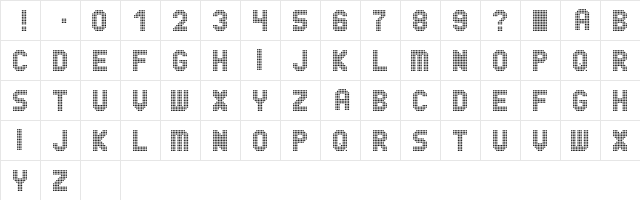
Ride the Fader Regular Font Preview
Ride the Fader Regular
Design Context for Ride the Fader Typeface
Ride the Fader takes a measured approach to typography — its balanced proportions and neutral character make it a reliable workhorse for both digital and print work.